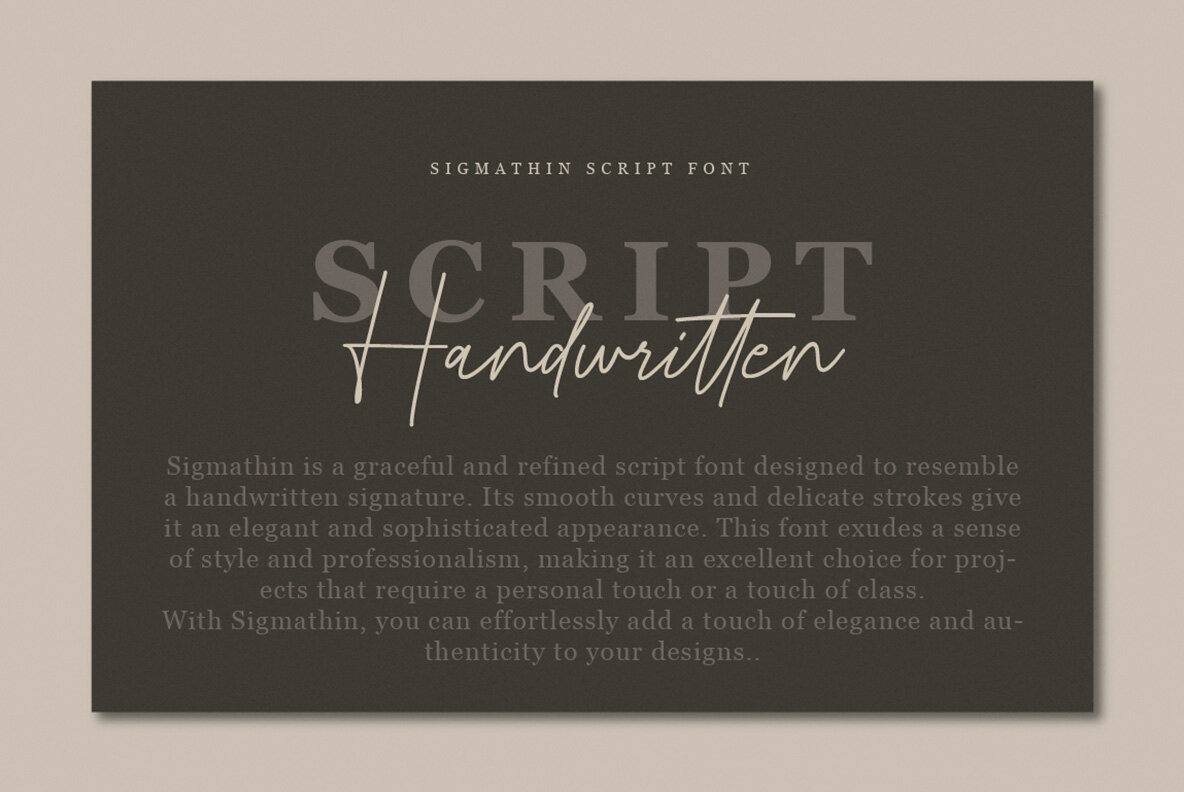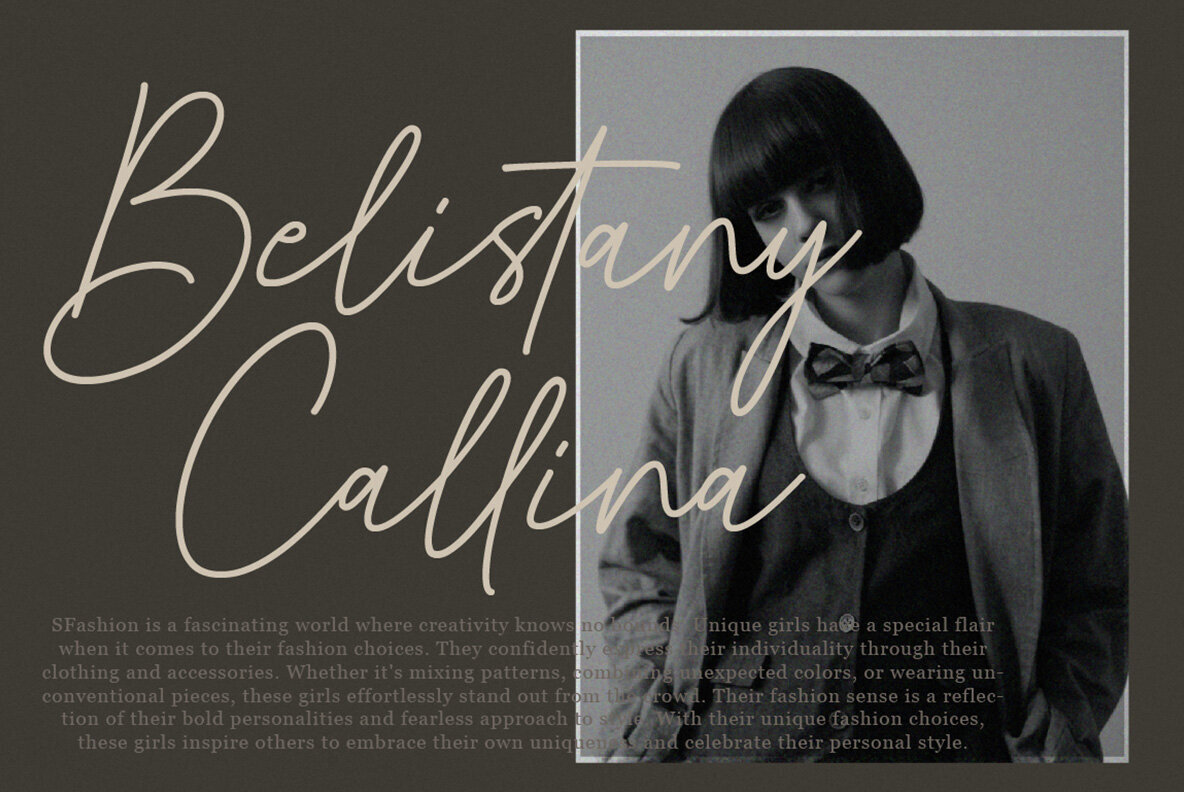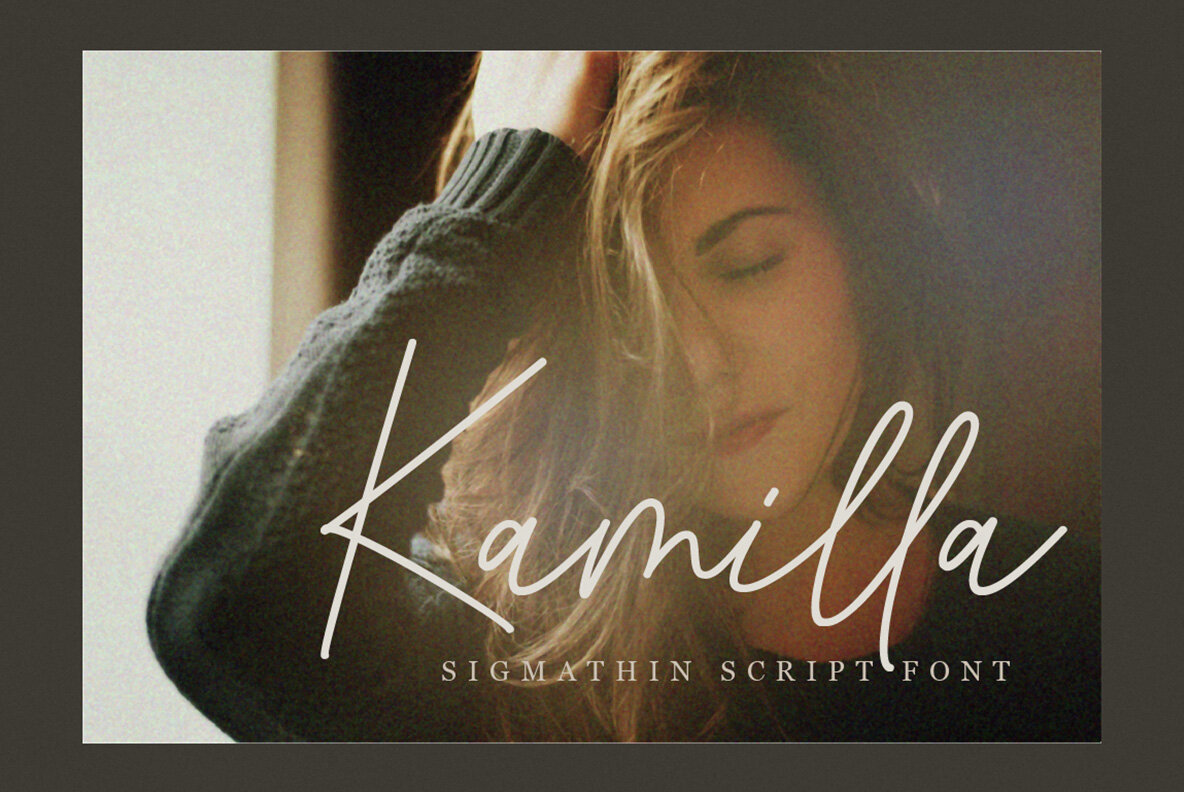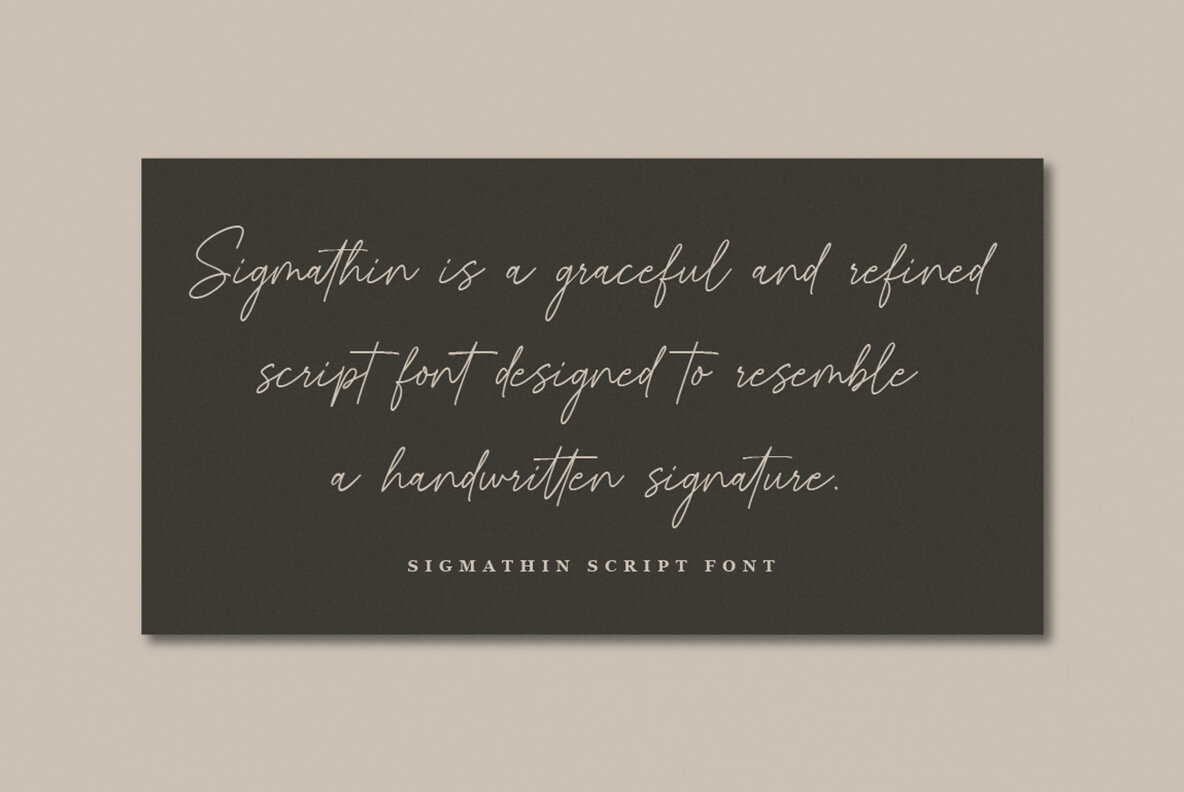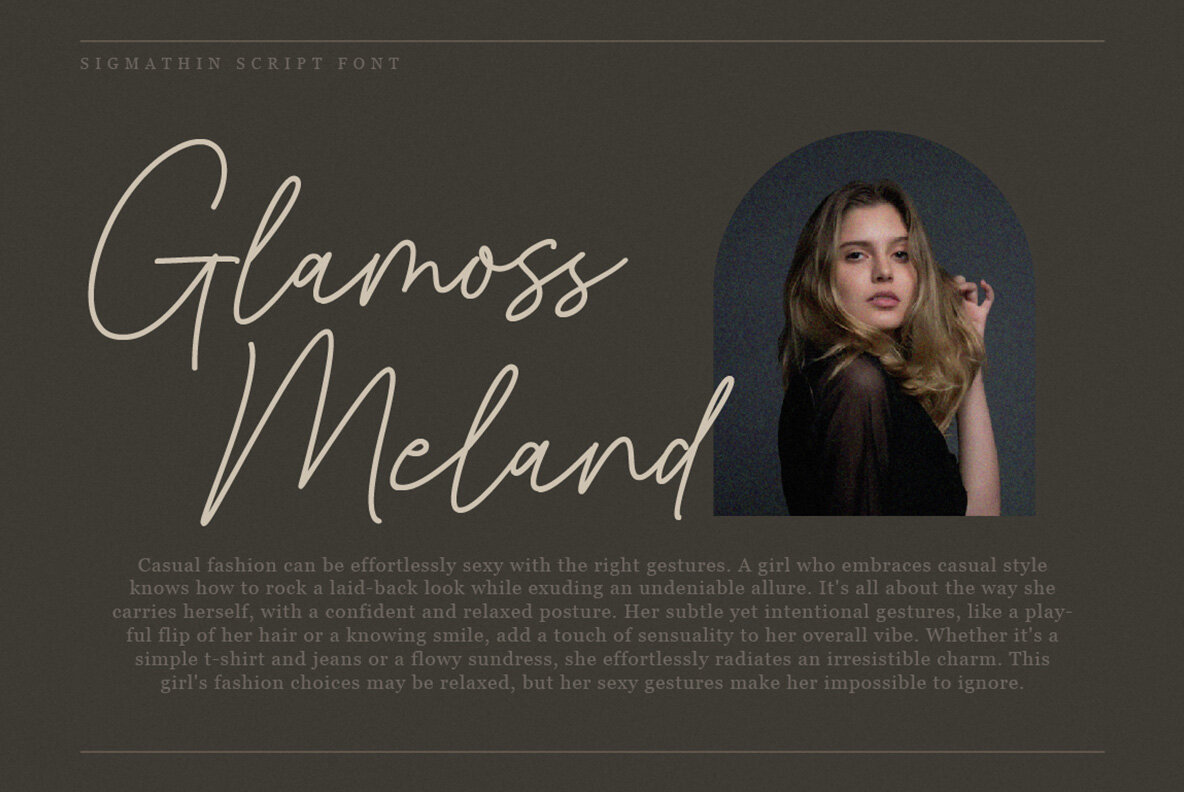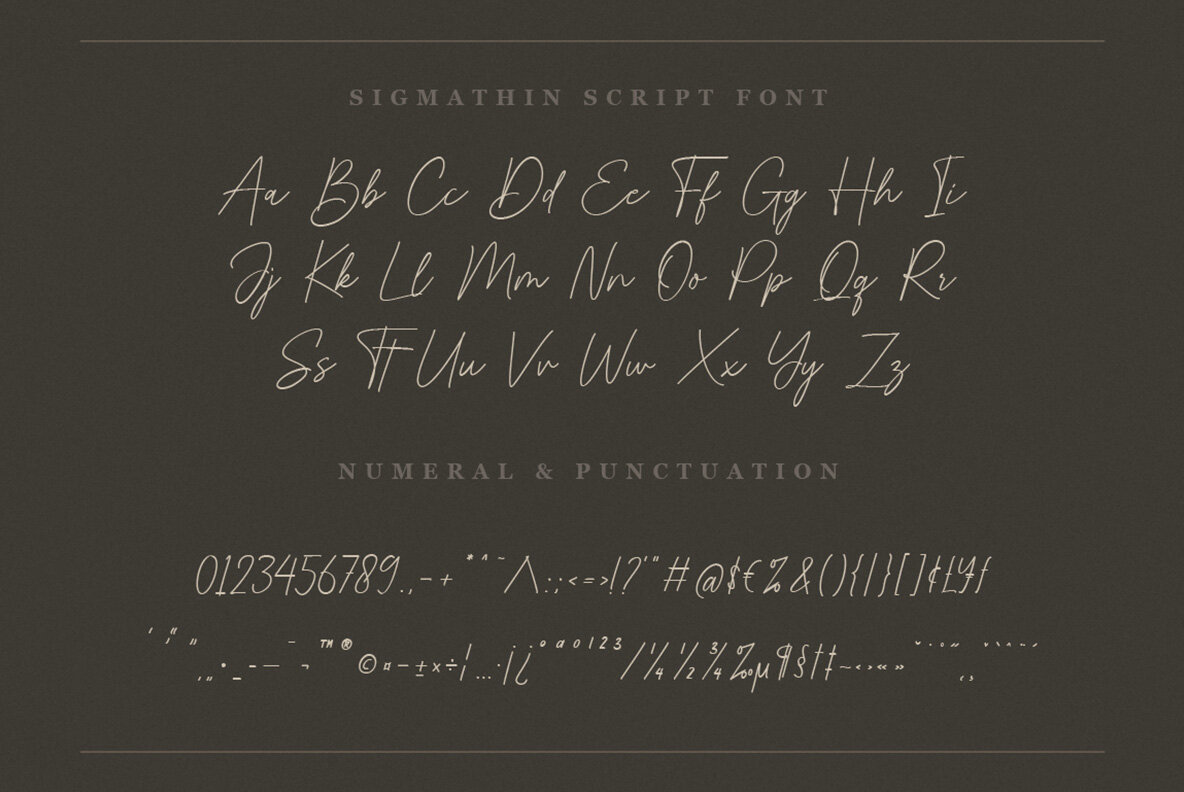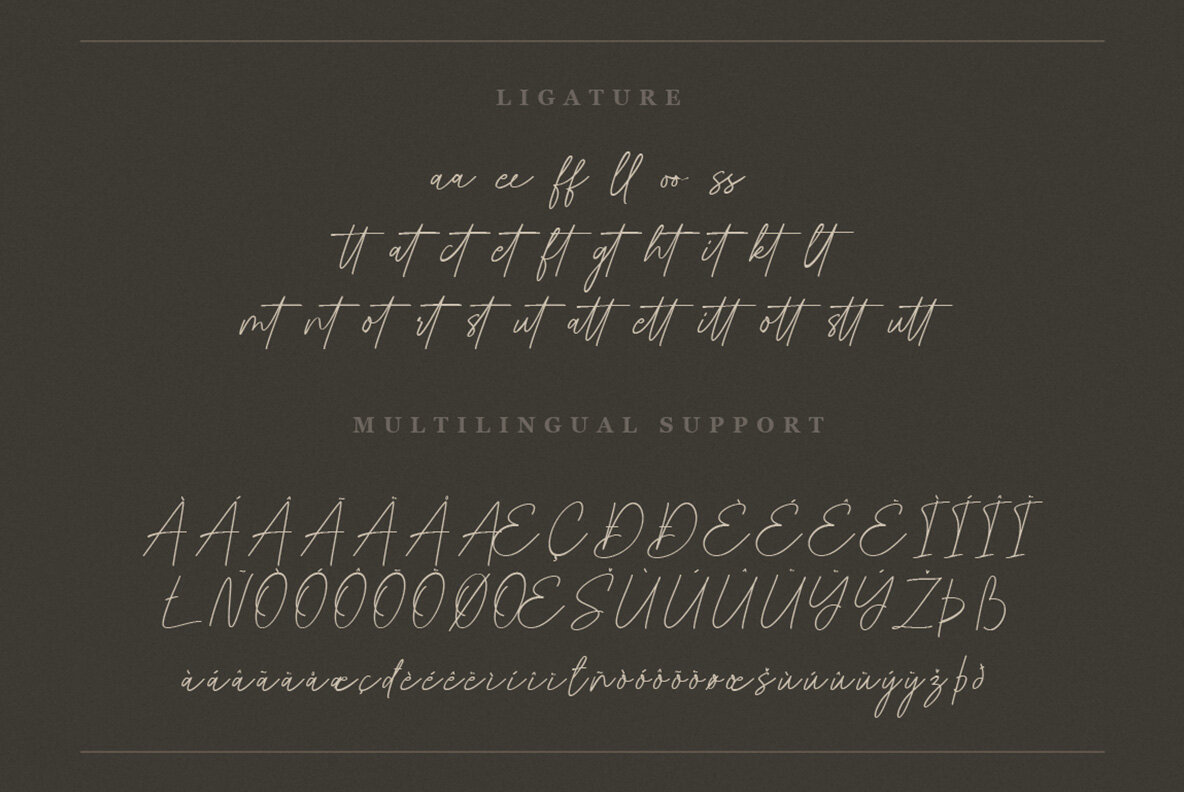
Sigmathin Font
Sigmathin Regular
Sigmathin is a graceful and refined script font designed to resemble a handwritten signature. Its smooth curves and delicate strokes give it an elegant and sophisticated appearance. This font exudes a sense of style and professionalism, making it an excellent choice for projects that require a personal touch or a touch of class.